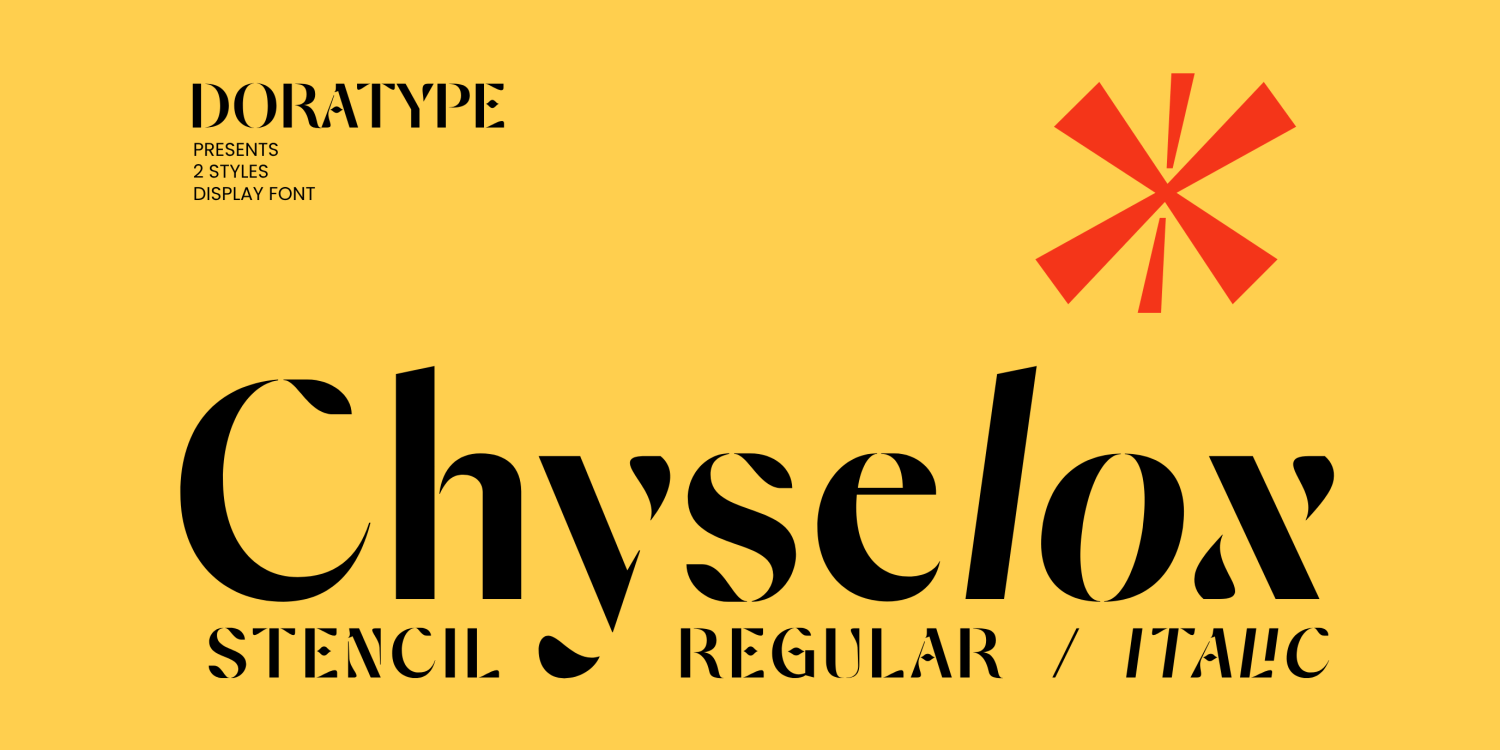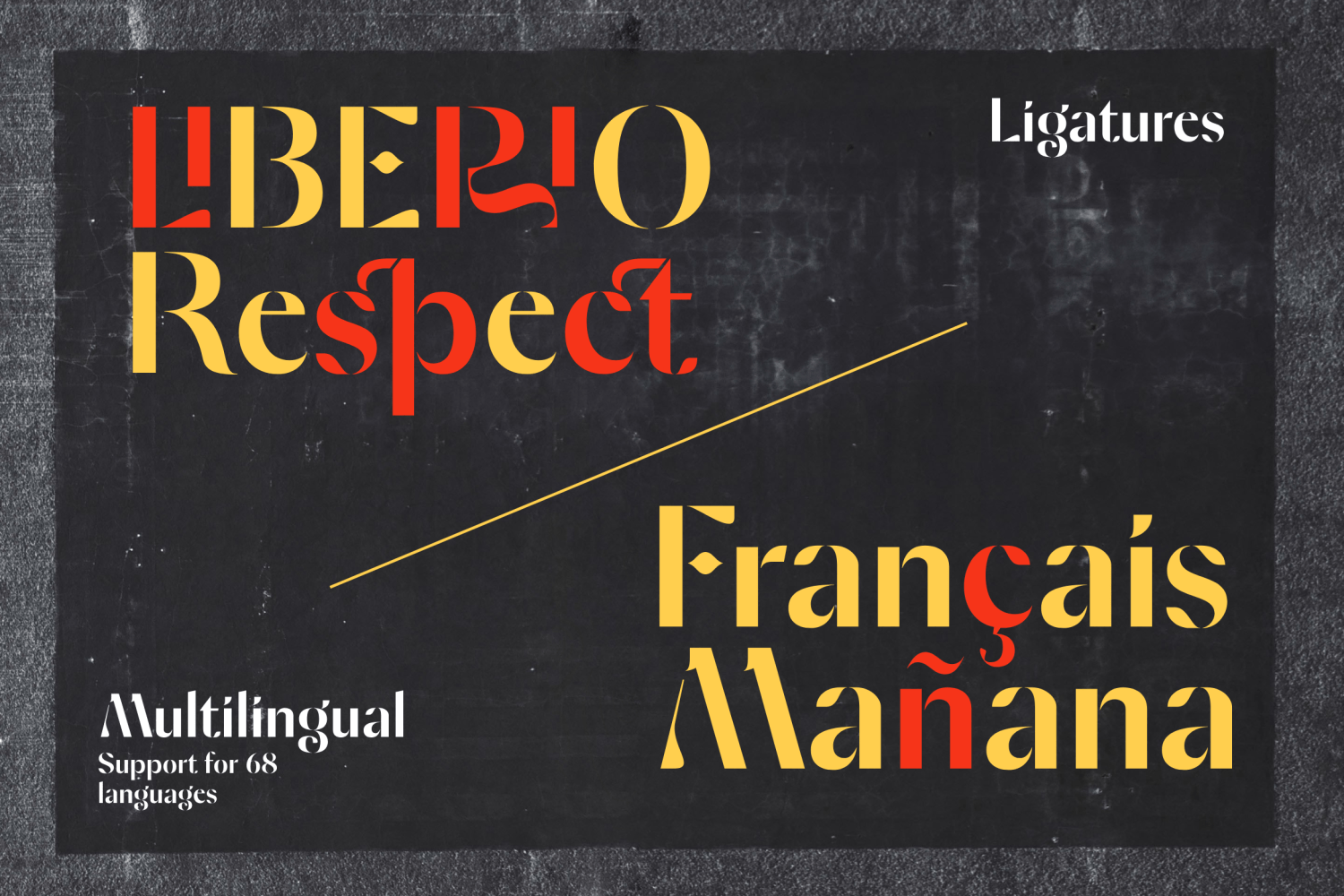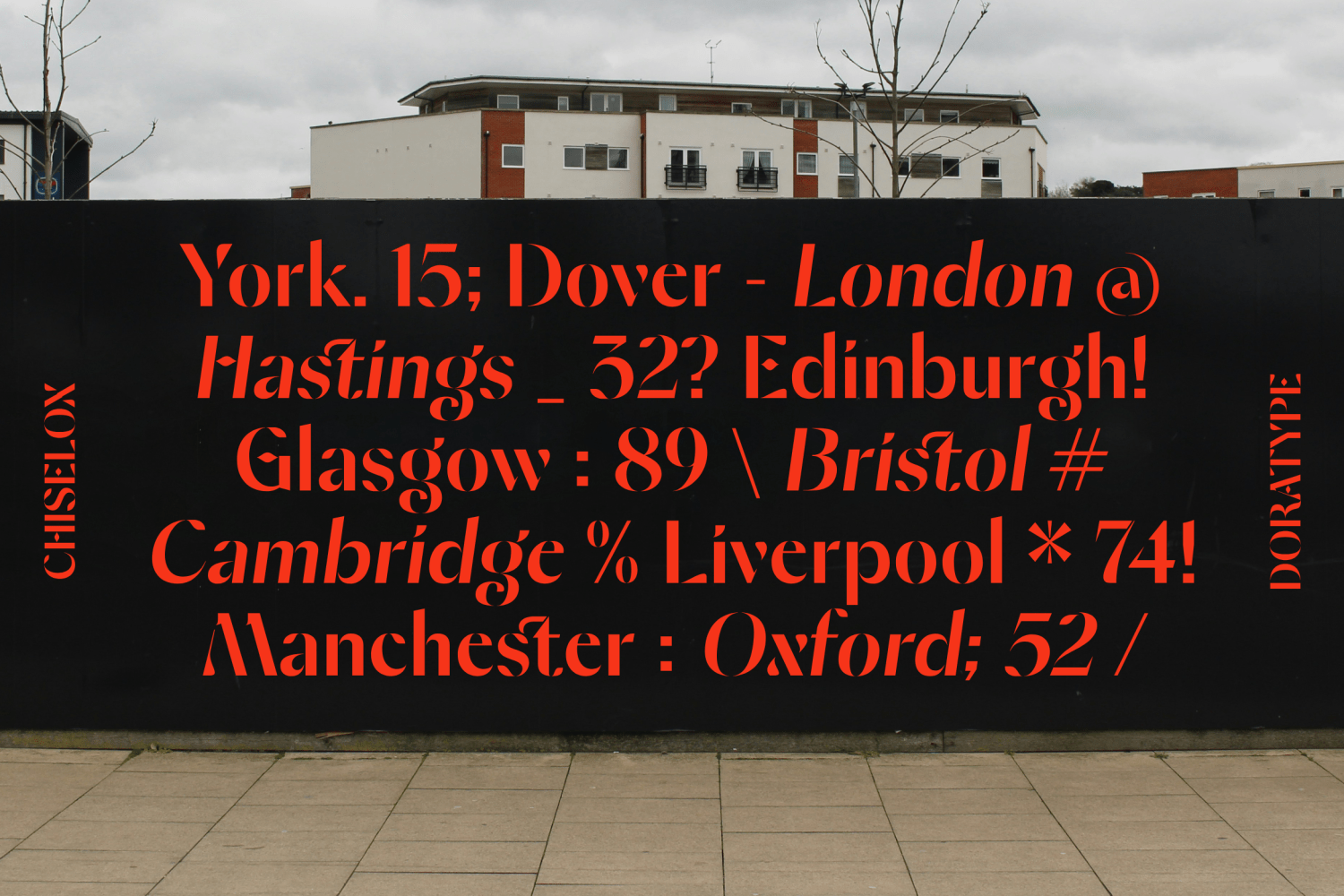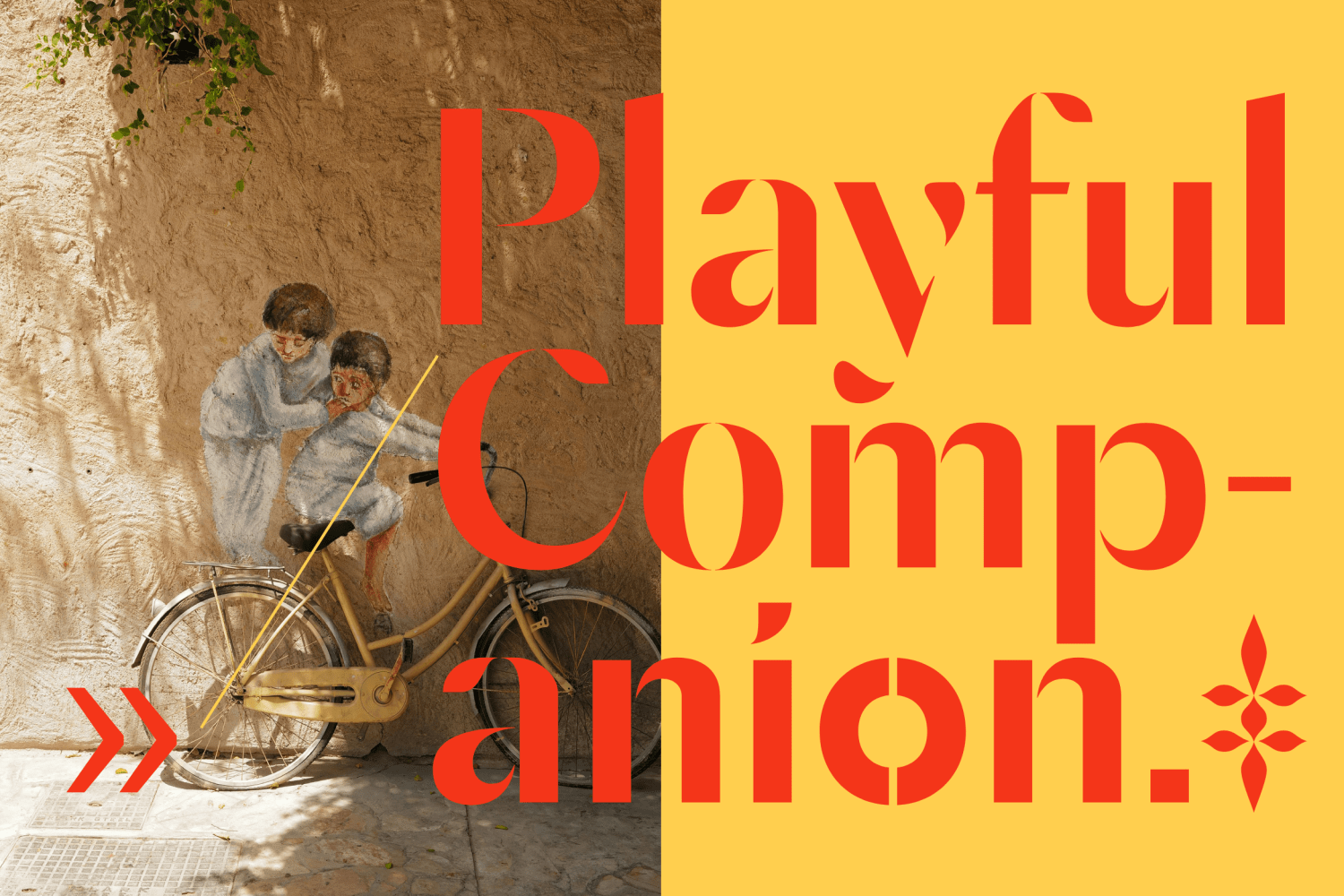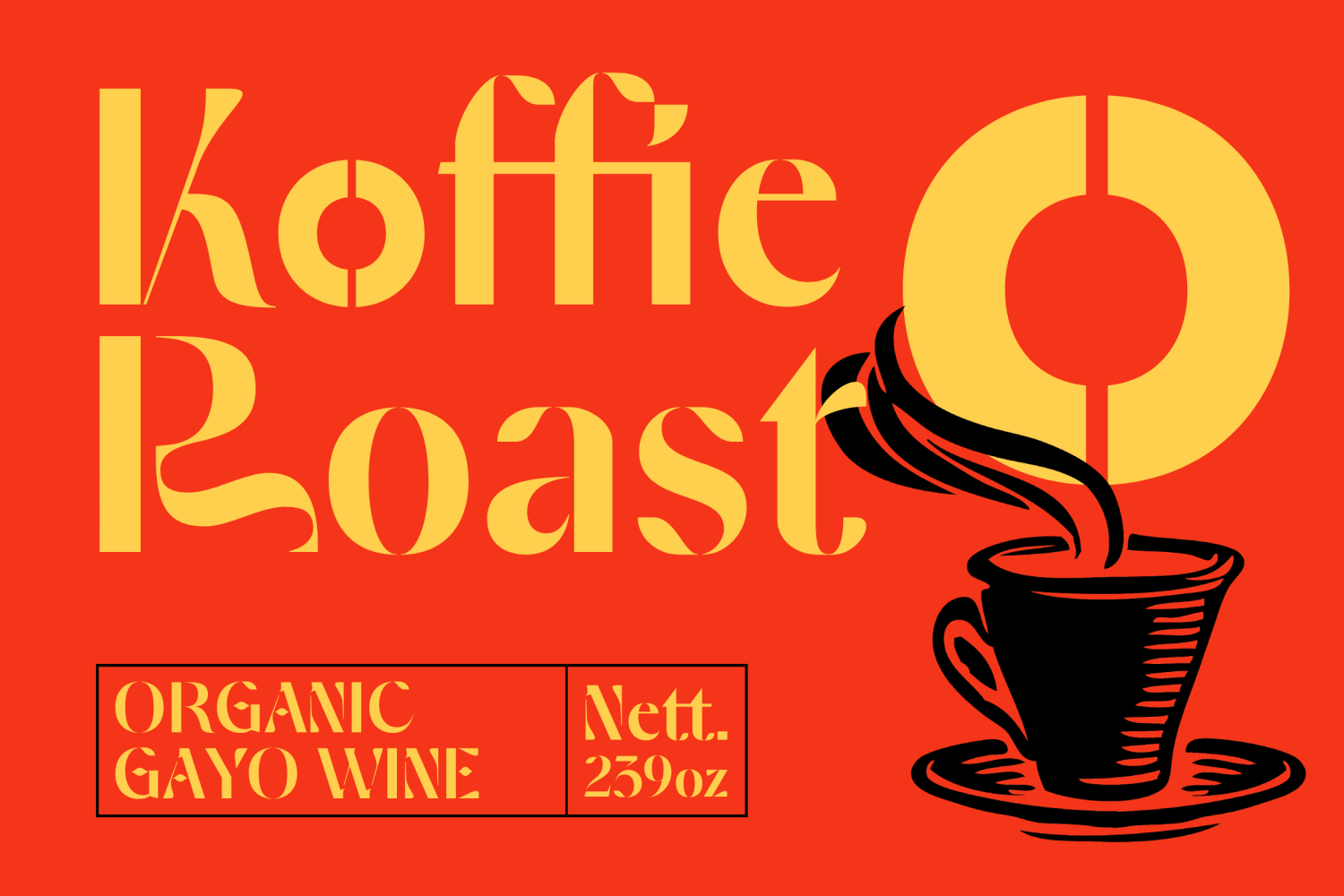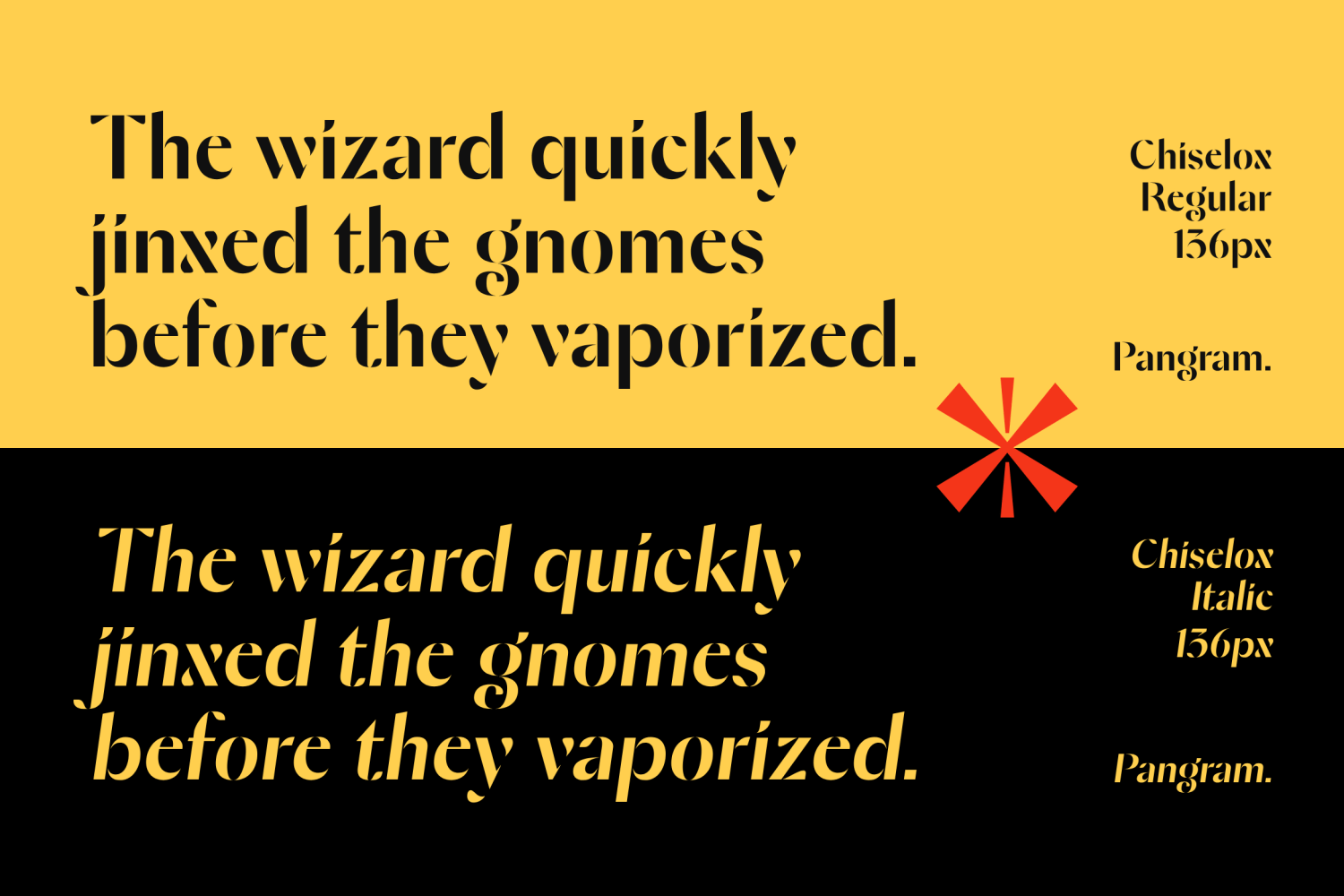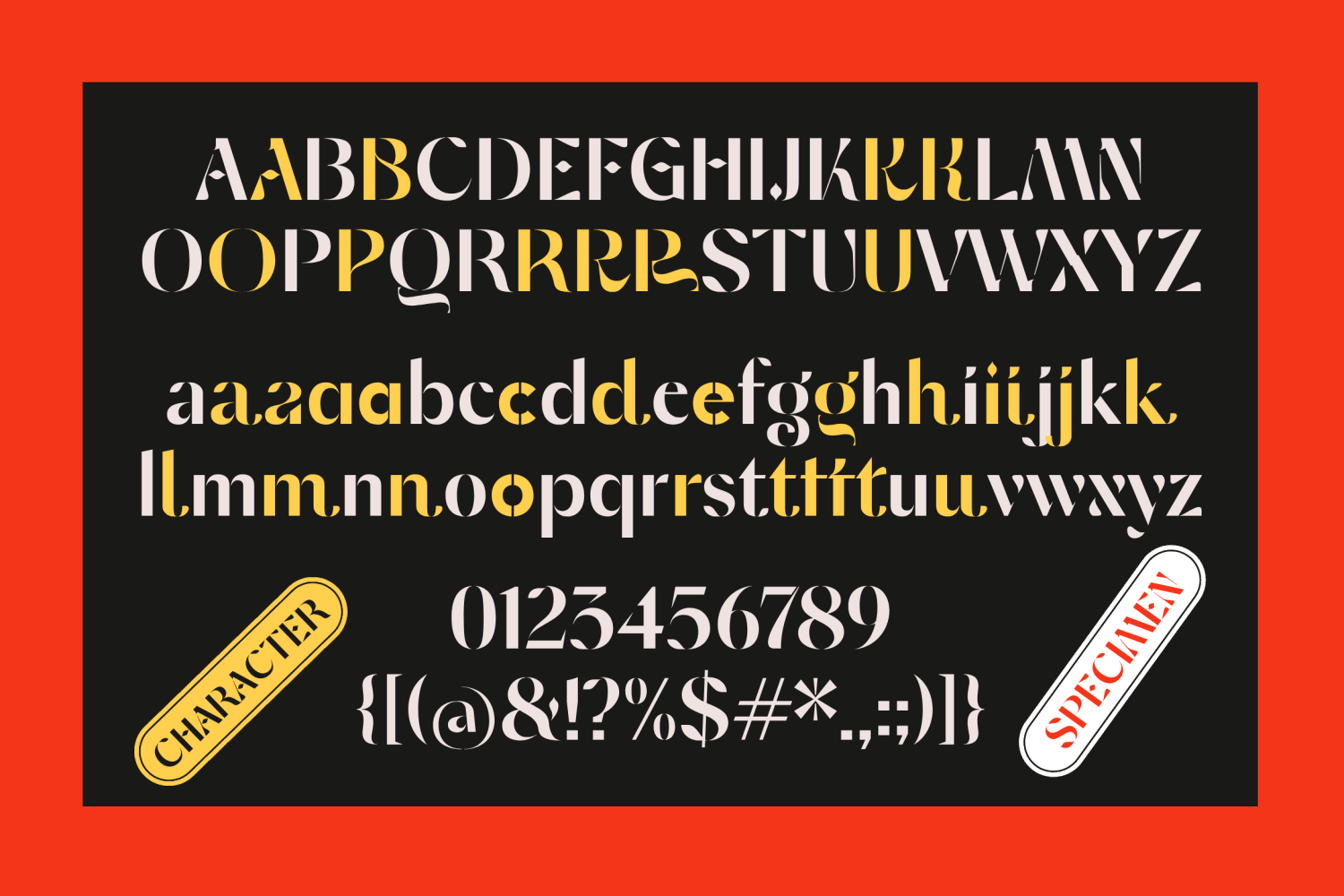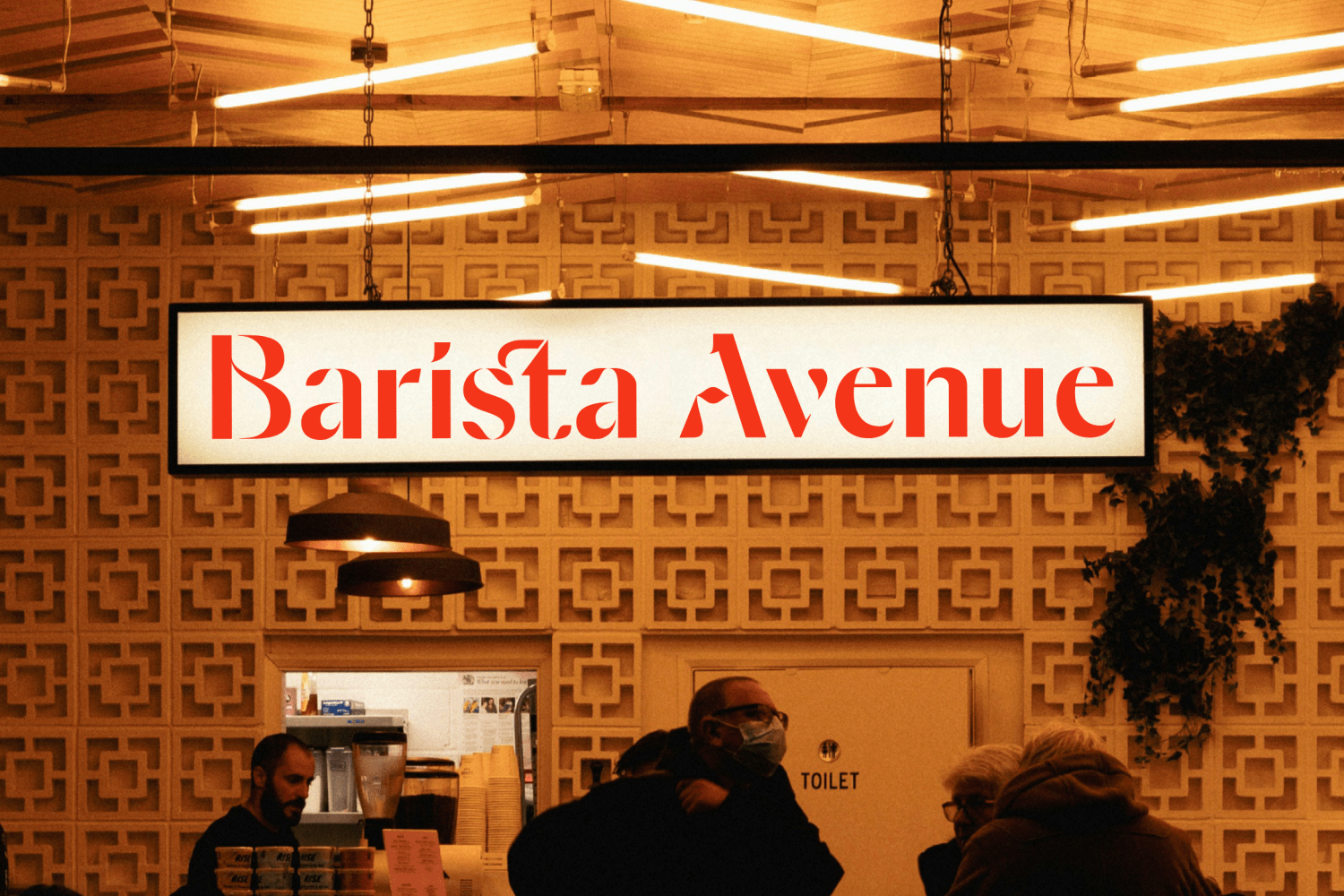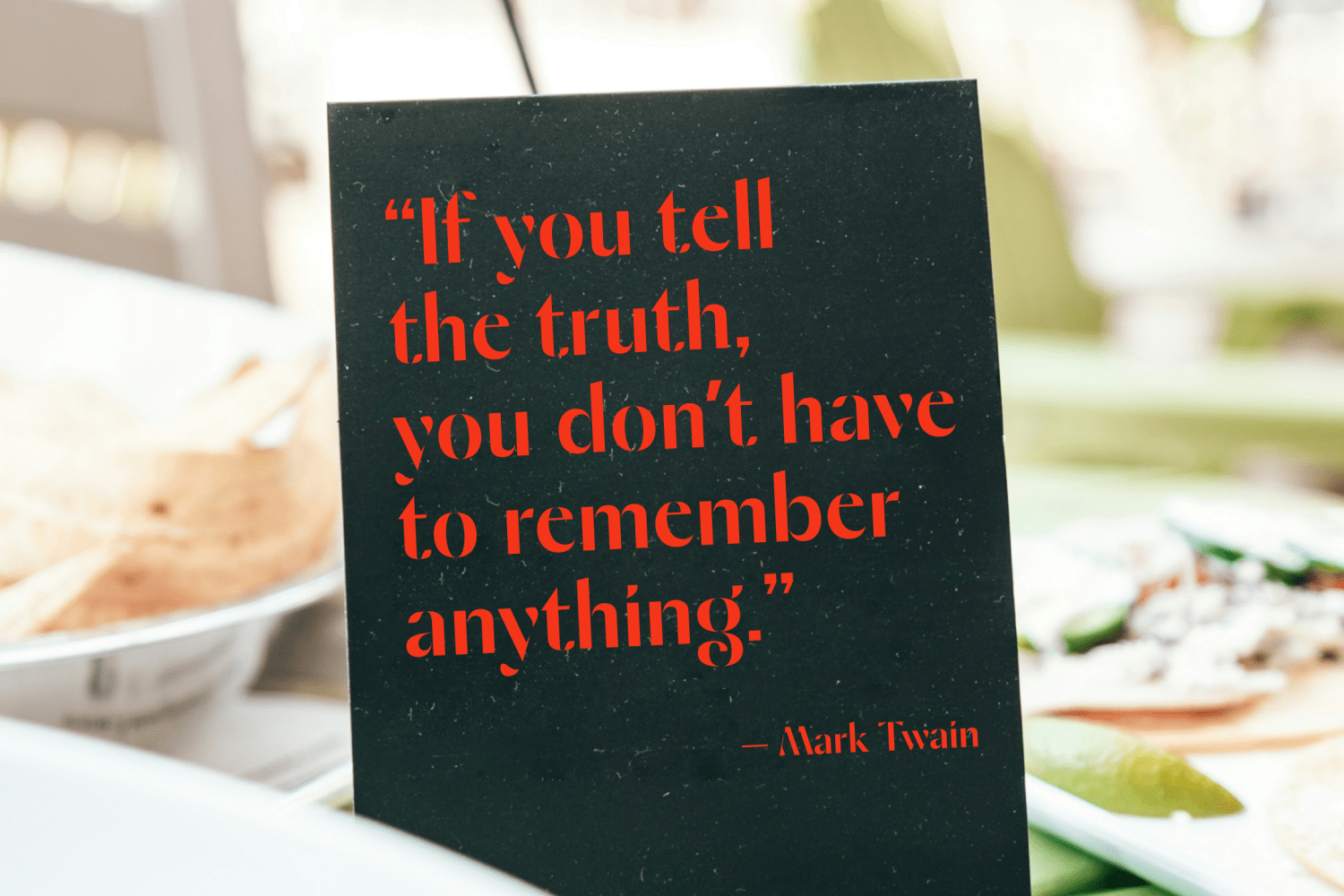
Chiselox
Font Family by Dora Typefoundry
Chyselox is a classic stancil sans-serif typeface with a friendly touch that feels very modern. Known for its subtle details, making it versatile for a variety of uses across the brand.